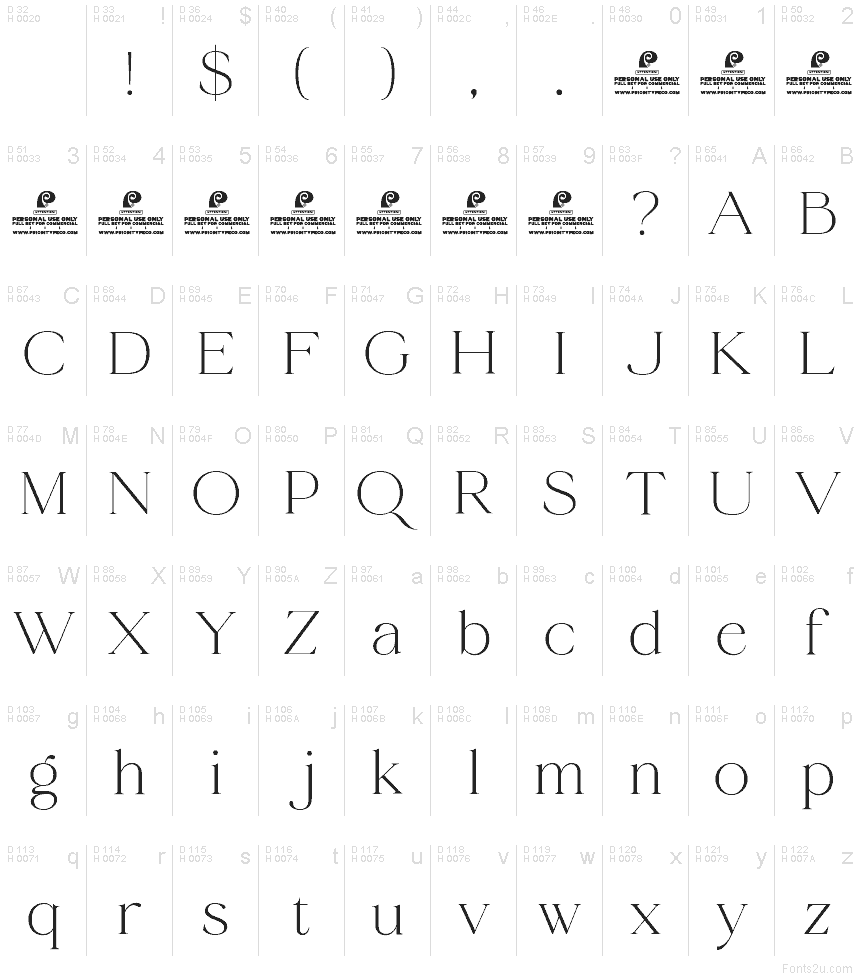
Radiant Charisma DEMO Light
Radiant Charisma Light font by Prioritype Co is a sophisticated serif typeface inspired by classic design influences. With its elegant, refined, and professional appearance, this versatile and timeless style fits in a variety of settings. This makes it the number one choice when text clarity and readability is important.
A wide selection of projects can benefit from this free serif font. It works well on personal printed items including cards or posters as well as on company brochures, profile websites or magazine covers. Whether in brand identity creation or small-sized readable texts, make use of the available features for maximum impact!